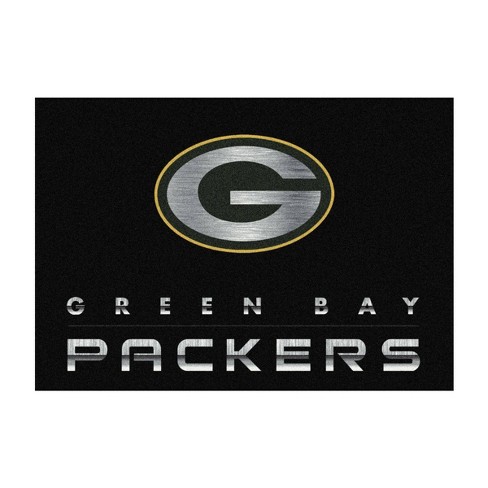
Green Bay Packers Logo Font
Green bay packers logo font. Name email website. The g stands for green bay and nothing more. The fonts collection section is the place where you can browse filter custom preview and.
The wordmark is set in a stencil font which is very similar to gi. You can download the font for free here. Nerfect type laboratories nfl.
The packers wordmark is classic strong and steadfast. The text generator section features simple tools that let you create graphics with fonts of different styles as well as various text effects. Green bay packers logo black and white.
What font does the green bay packers use for its football. Their familar g logo was created in 1961 by equipment manager gerald brashier and art student john gordon. It goes back to the period of the companys name change to acme packing which is represented on the logo.
Packers alternate logo packers primary logo packers concept. The teams official colors are dark green gold white. The green bay packers redesigned logo resembles a football with the letter g inside it having the same shape.
The fonts in use section features posts about fonts used in logos films tv shows video games books and more. The bold sans serif packers wordmark in all capitals had its first letter enlarged. Georgia tech actually has the same font of the g on both the green bay packers logo and their own.
The inscription was executed in dark green with a thin yellow outline and placed on a background with a red and yellow football which was located slightly diagonally. Font meme is a fonts typography resource. This font is tagged.